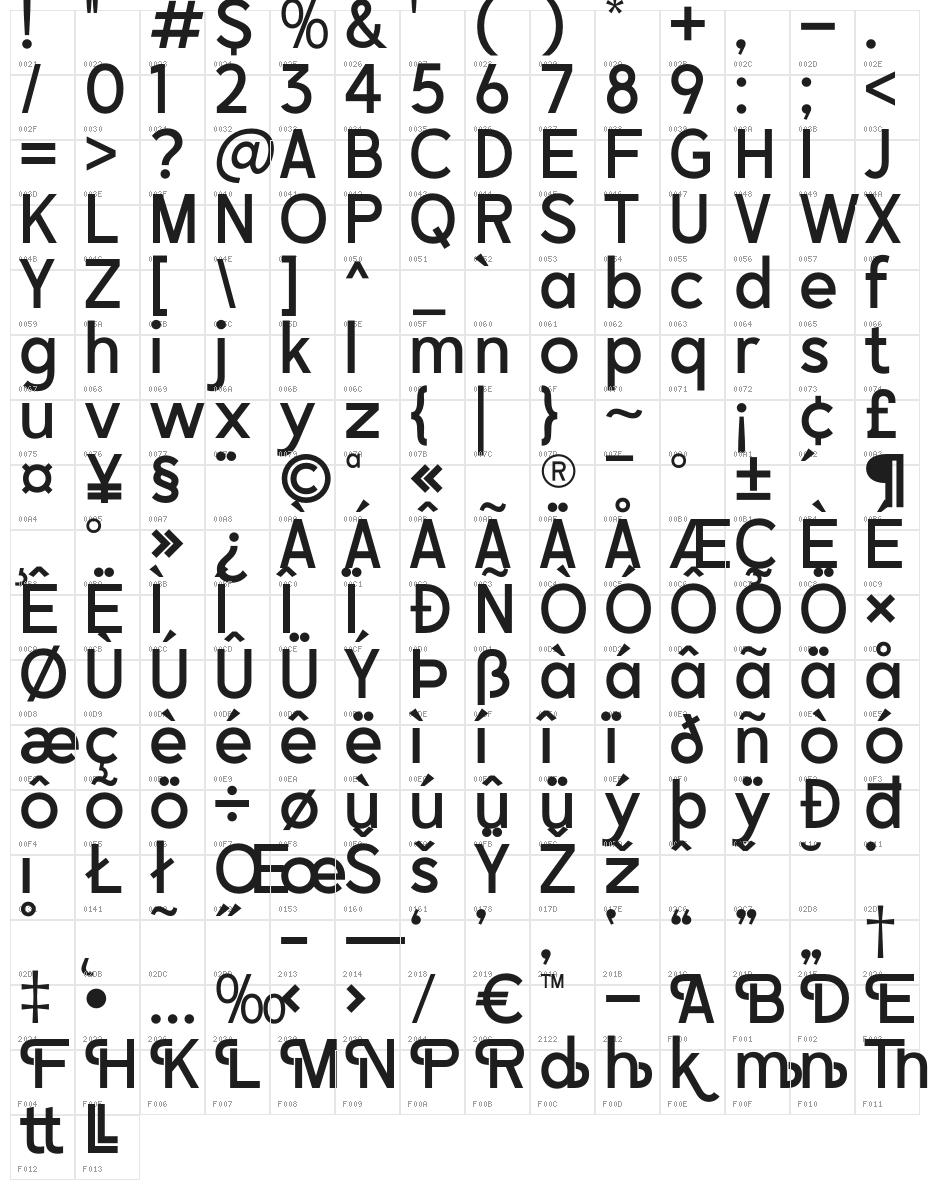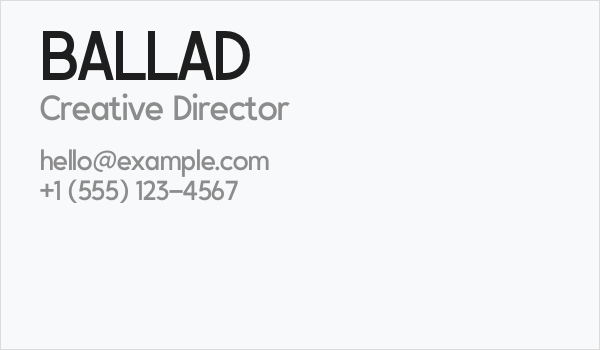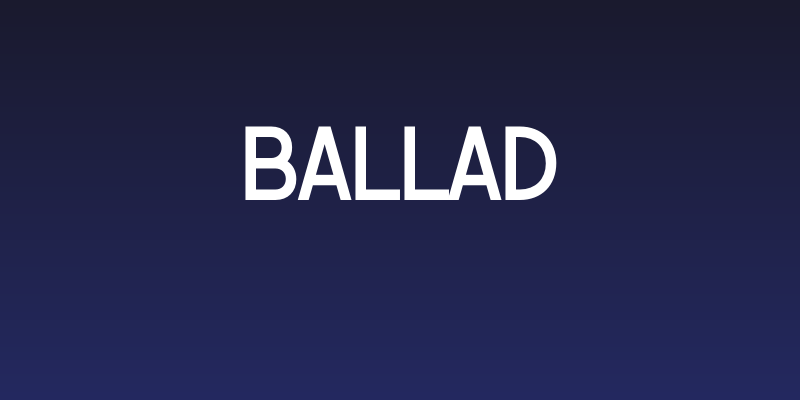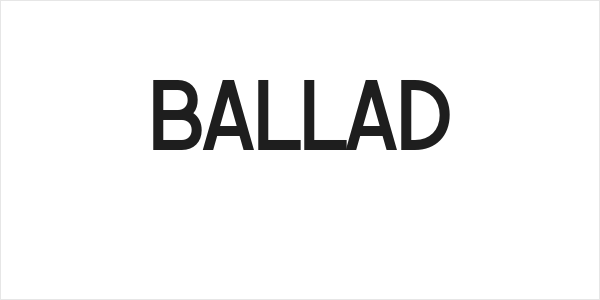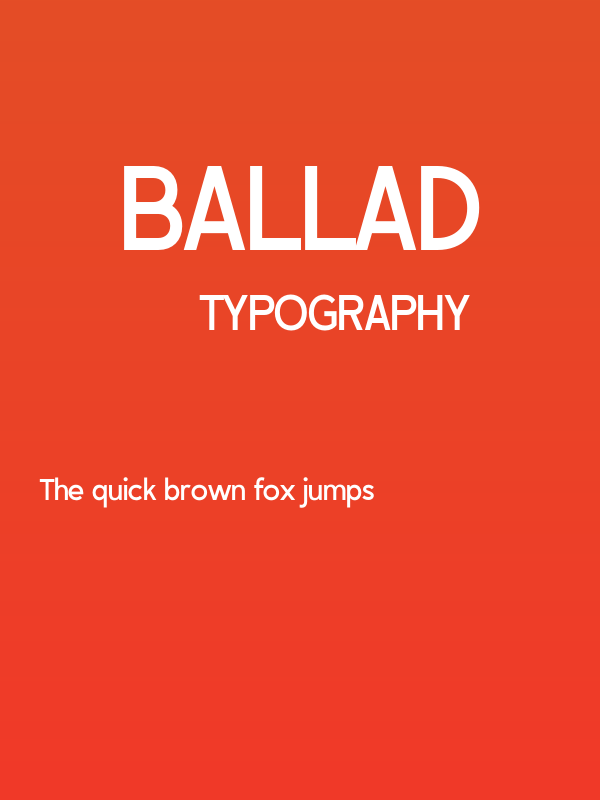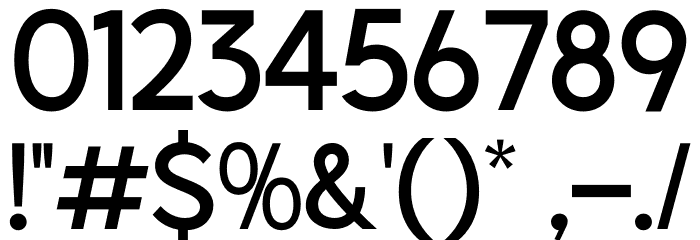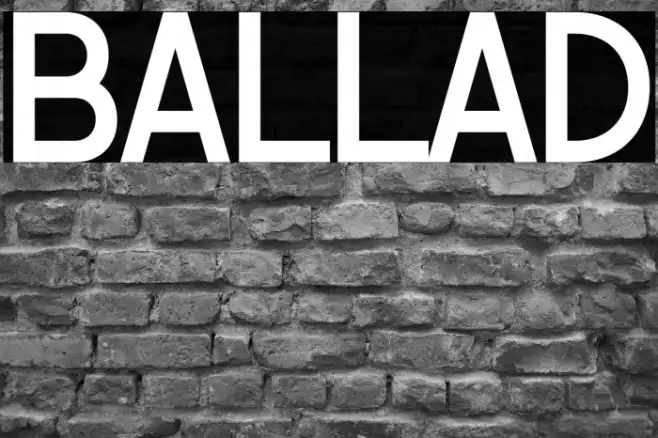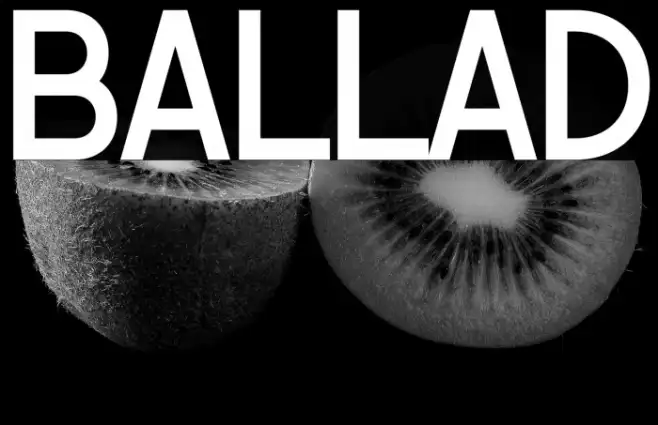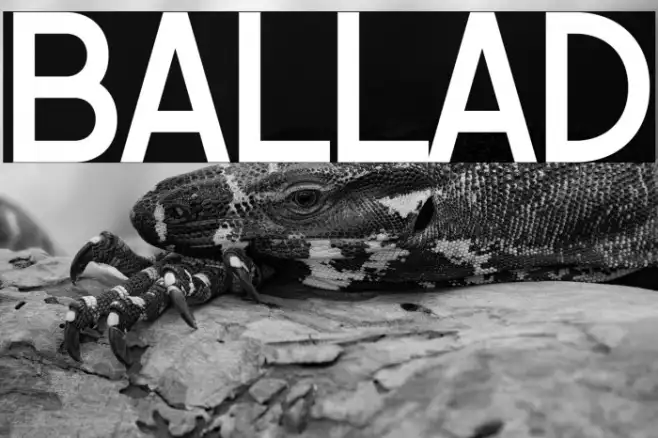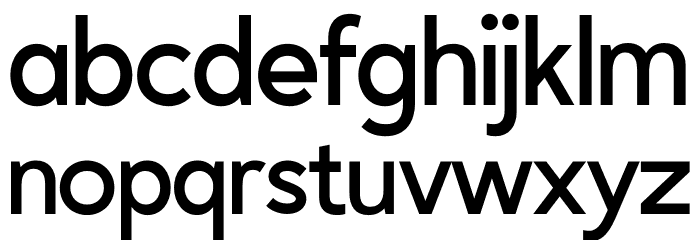
BALLAD Font
BALLAD Description
This font exhibits a clean and modern sans-serif style, characterized by its geometric shapes and uniform stroke widths. The uppercase letters are bold and assertive, while the lowercase letters maintain a consistent and harmonious appearance. The numerals are clear and easily distinguishable, making them suitable for various applications. The special characters are well-integrated, maintaining the overall aesthetic of the font. Its simplicity and clarity make it versatile for both digital and print media.